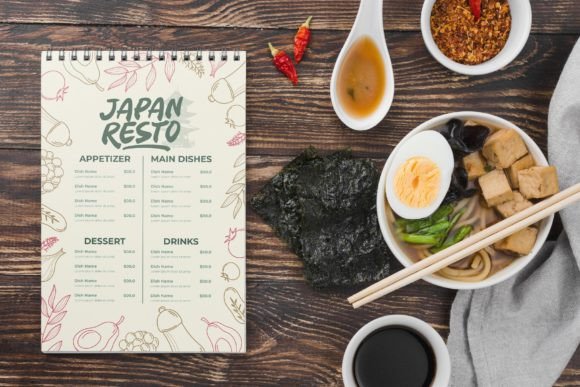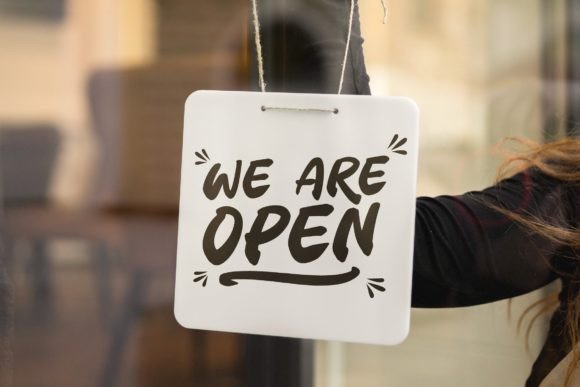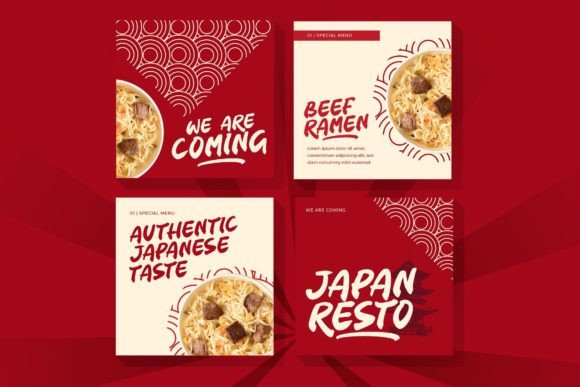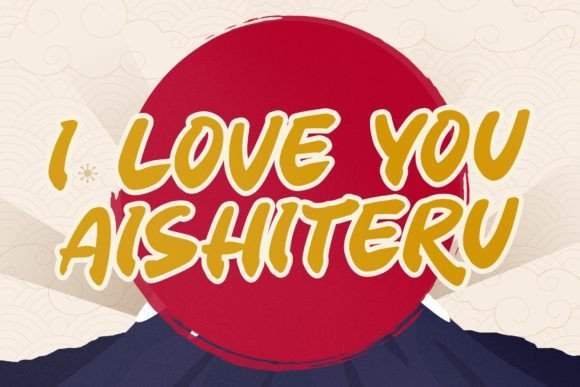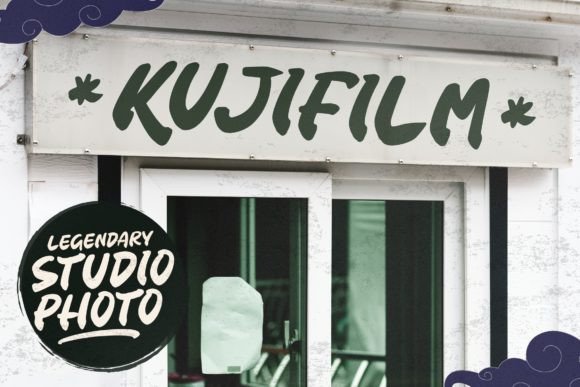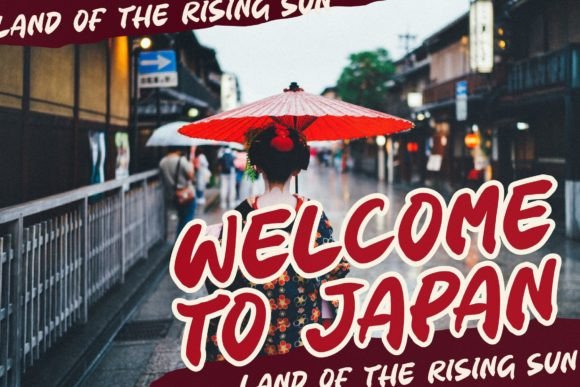
Introduction to Ramen Ichikaru Font
Ramen Ichigaru is a bold display font suitable for any projects such as logos, branding projects, homeware designs, product packaging, mugs, quotes, posters, shopping bags, T-shirts, book covers, name cards, invitation cards, greeting cards, labels, photography, watermark, special events, and all your other lovely projects that need a beautiful touch.
Ramen Ichigaru is a bold display font suitable for any projects such as logos, branding projects, homeware designs, product packaging, mugs, quotes, posters, shopping bags, T-shirts, book covers, name